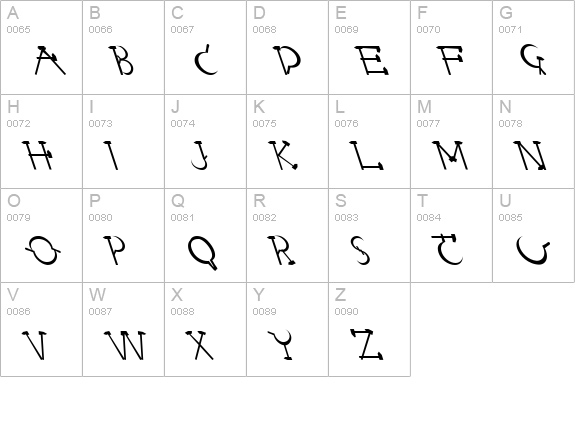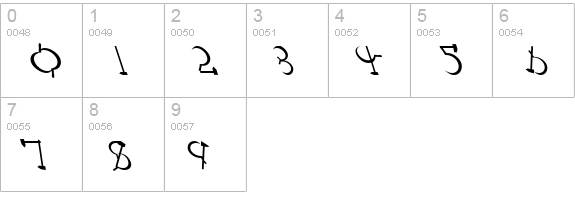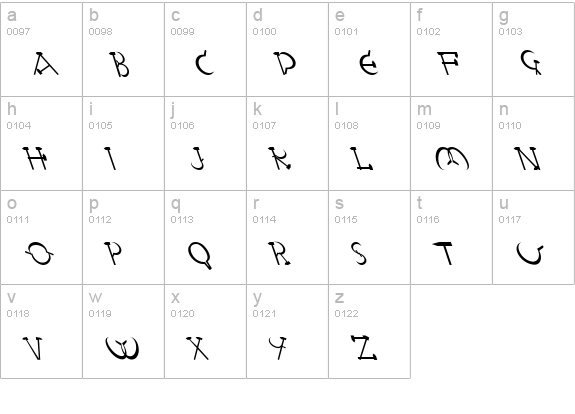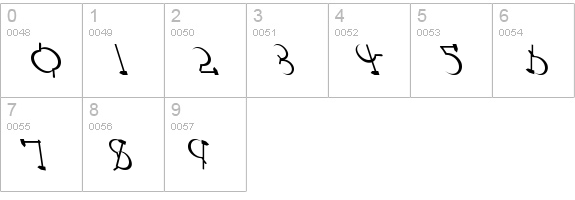
Red Letter Lefty Font Details
Introducing Red Letter Lefty, a captivating and versatile font that will add a touch of uniqueness to any project. This font boasts a stunning left-handed design, making it perfect for those looking to make a bold statement. Red Letter Lefty exudes elegance and sophistication, with its meticulously crafted letterforms that effortlessly blend modernity and classic charm. What sets Red Letter Lefty apart is not just its exceptional design, but also its accessibility. We believe that creativity should be limitless and accessible to all, which is why we are thrilled to offer Red Letter Lefty as a free font. Yes, you read that right - absolutely free! This means that anyone can freely download and utilize this incredible font to bring their creative visions to life. Downloading Red Letter Lefty is quick and easy. Simply head over to FontsMarket.com, a trusted source for high-quality fonts, and find Red Letter Lefty in their extensive collection. With just a few clicks, you'll have this extraordinary font at your fingertips, ready to enhance your designs and captivate audiences. Whether you're working on a branding project, logo design, website, or any other creative endeavor, Red Letter Lefty will effortlessly elevate your work to new heights. Its versatility allows it to adapt to various design styles, ensuring that your projects stand out from the crowd. Red Letter Lefty is more than just a font; it's a statement of individuality and creativity. Embrace its left-handed design and let it inspire you to push boundaries and explore new possibilities. Download Red Letter Lefty for free at FontsMarket.com today and unlock a world of endless creative potential.